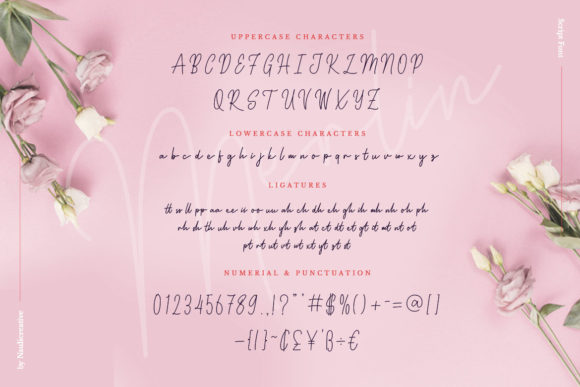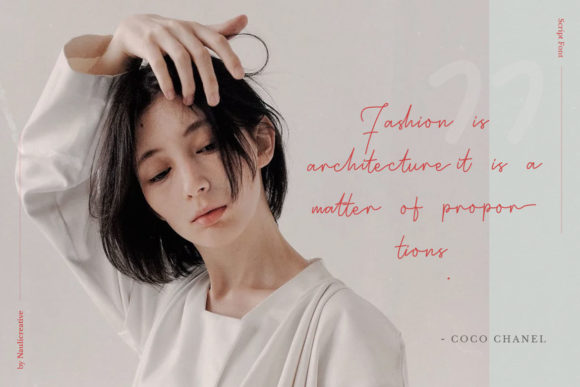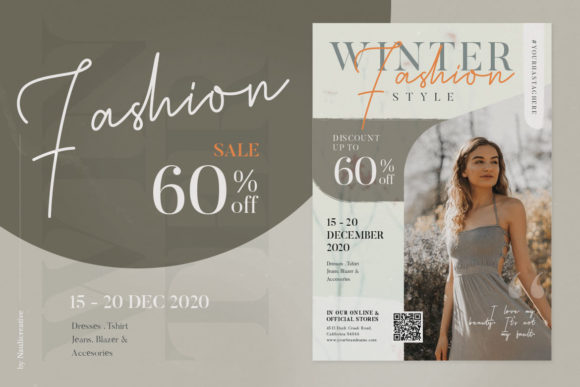
Introduction to Merlin Font
Merlin is a delicate and elegant handwritten font.
Its distinct and well rounded letters make this font a masterpiece Fall in love with its incredibly versatile style and use it to create spectacular designs.
Key Features of Merlin Font
Why Choose Merlin Font?